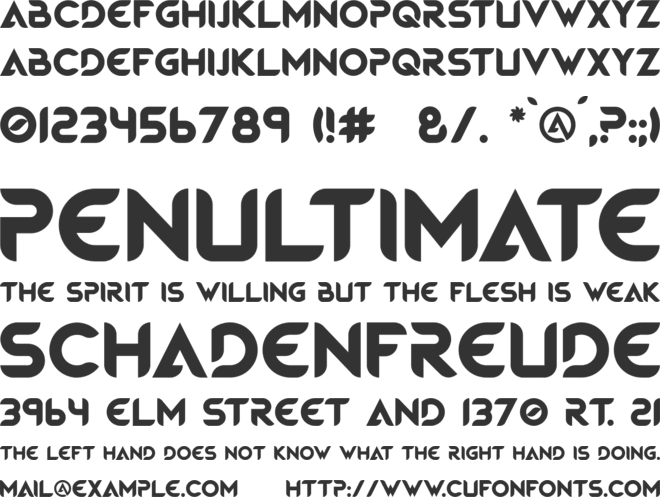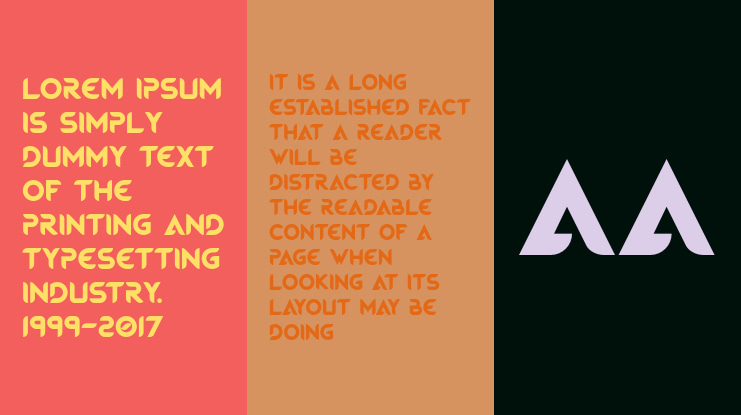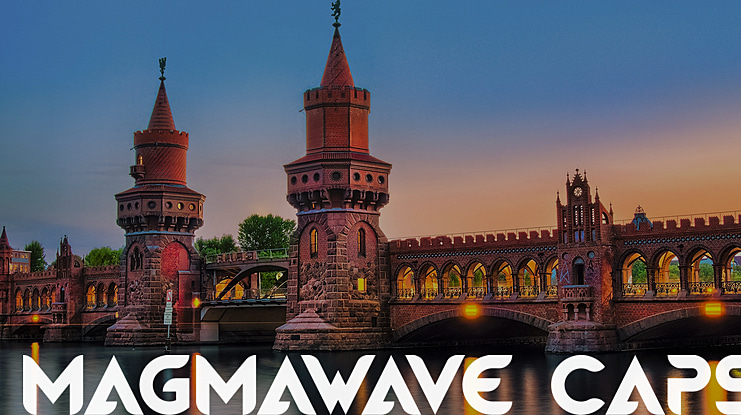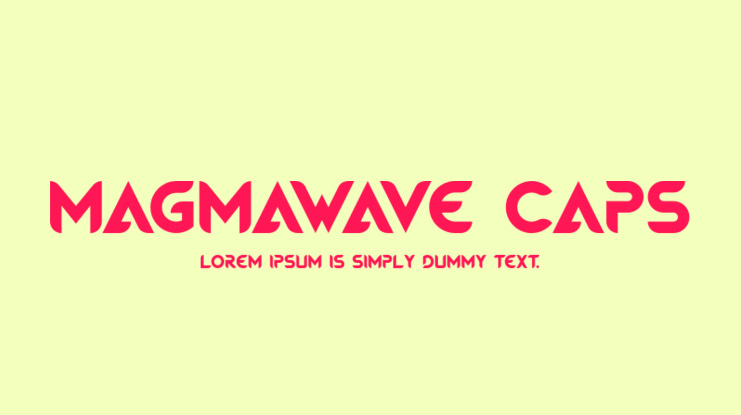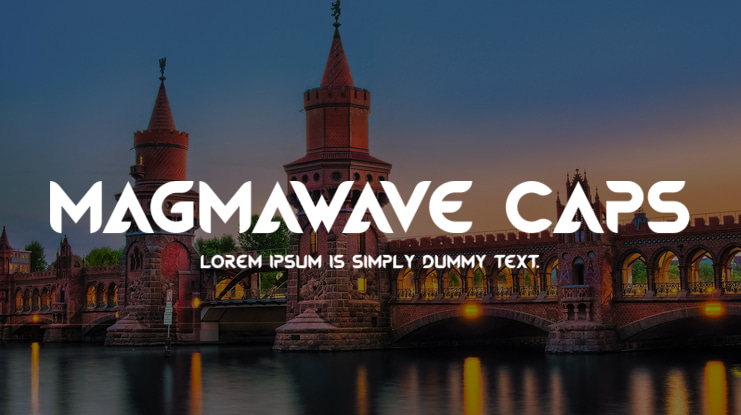
Magmawave Caps Font
Yanko Tsvetkov
MagmaWave Caps is a digital OpenType font reinventing the Art Deco typographic aesthetic for the digital age. You can review more samples on its presentation page: https://alphadesigner.com/fonts/magmawave-caps